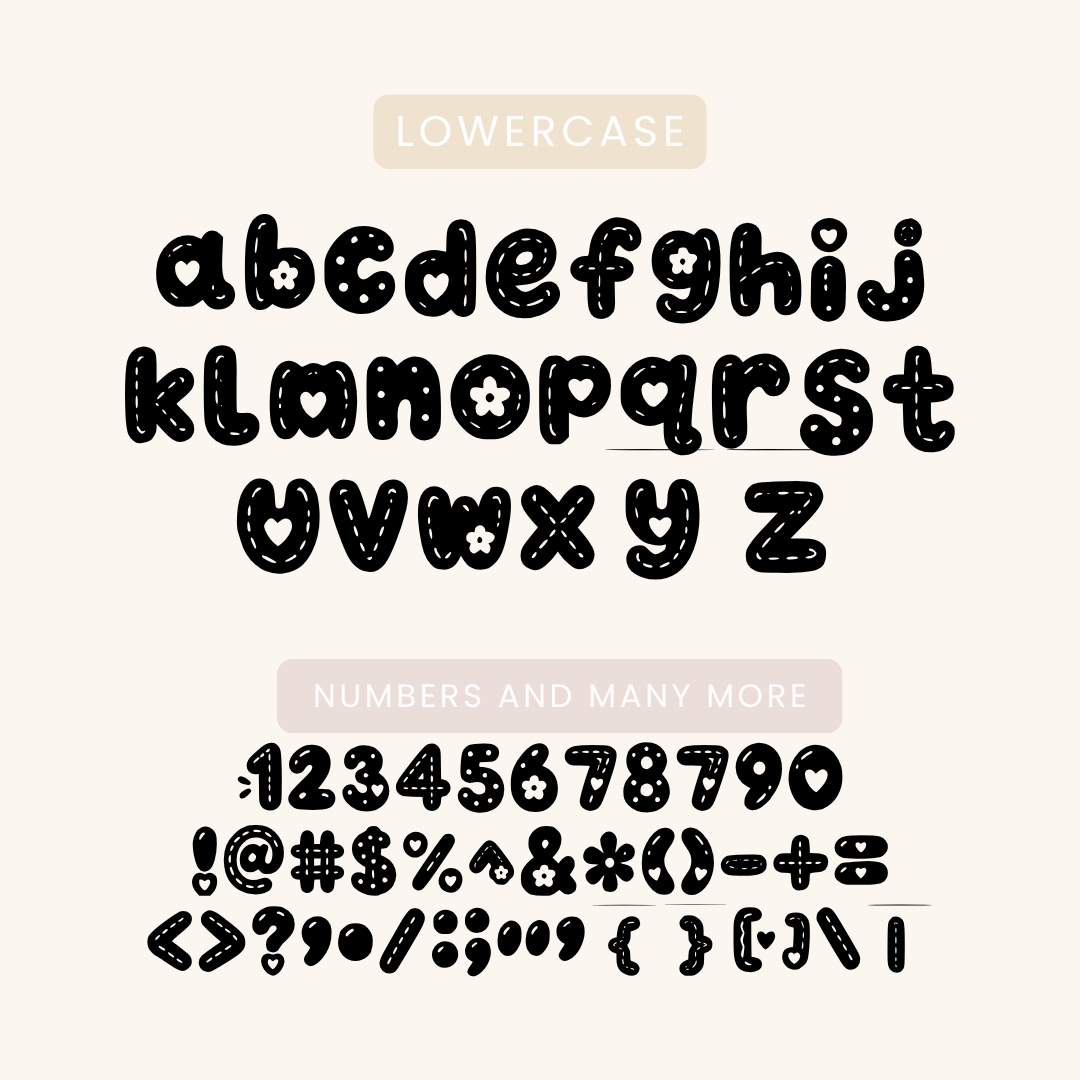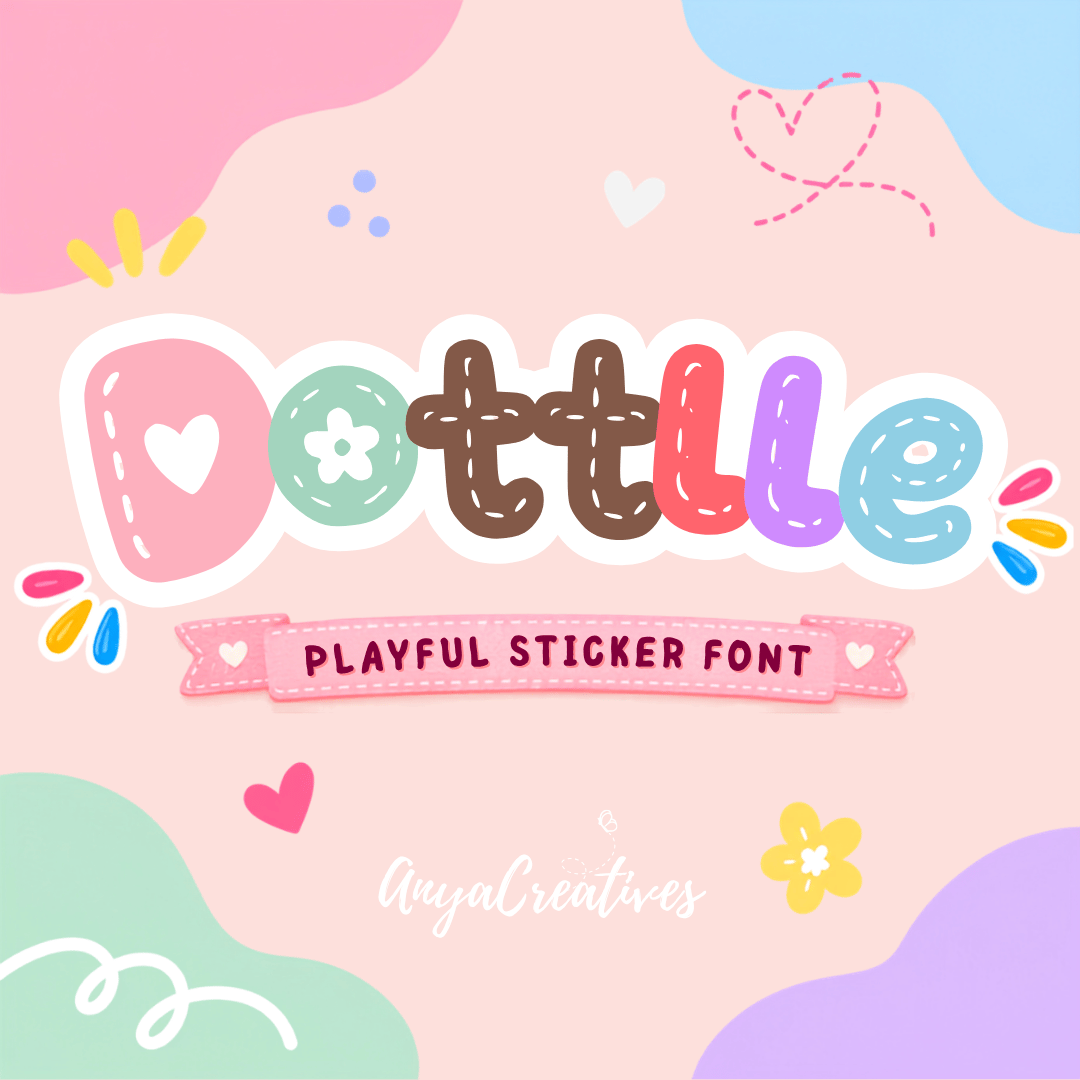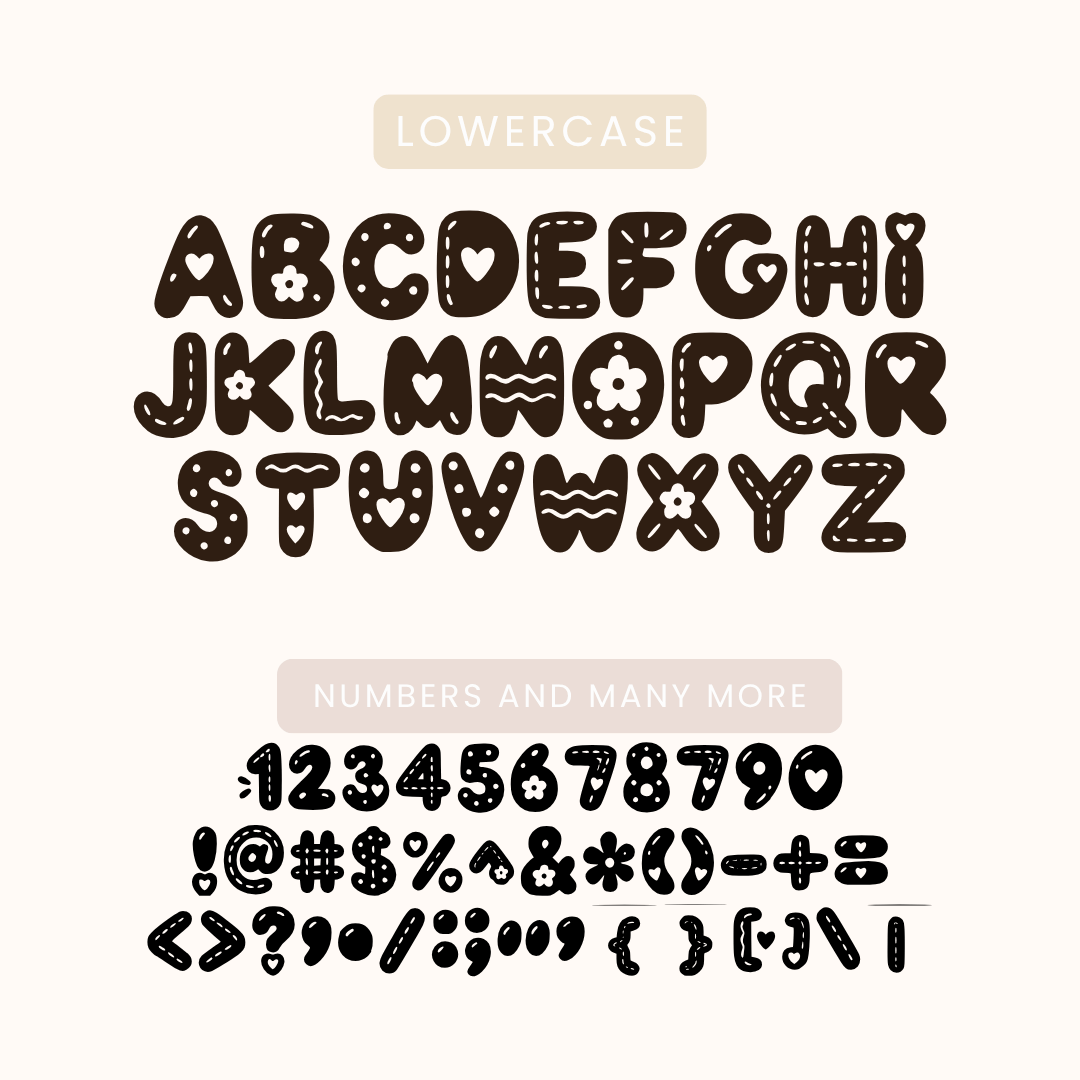
Dottelle Font – Playful Sticker Doodle Font
Meet Dottelle, a cute and playful sticker-style font filled with charming hearts, flowers, dots, stitched details, and whimsical accents.
Perfect for stickers, Cricut projects, Canva designs, classroom resources, invitations, printables, branding, social media graphics, and more.
Dottelle – Playful Sticker Font
Add a cheerful, handmade touch to your designs with Dottelle, a bold and whimsical display font inspired by stickers, doodles, and playful craft lettering.
Each character is designed with its own personality, featuring decorative elements like:
♡ Hearts
✿ Flowers
• Dots
〰 Wavy details
– Stitched and dashed accents
✦ Cute decorative shapes
The letters are rounded, chunky, and fun while still working beautifully together when typed into words and phrases.
Perfect For
- Stickers and sticker sheets
- Cricut and Silhouette projects
- Canva designs
- Procreate lettering
- Classroom materials
- Teacher resources
- Kids' worksheets
- Party invitations
- Birthday designs
- Printable products
- Digital planners
- Journaling
- Scrapbooking
- Product packaging
- Social media graphics
- Small business branding
- T-shirts and apparel
- Sublimation projects
- Craft projects